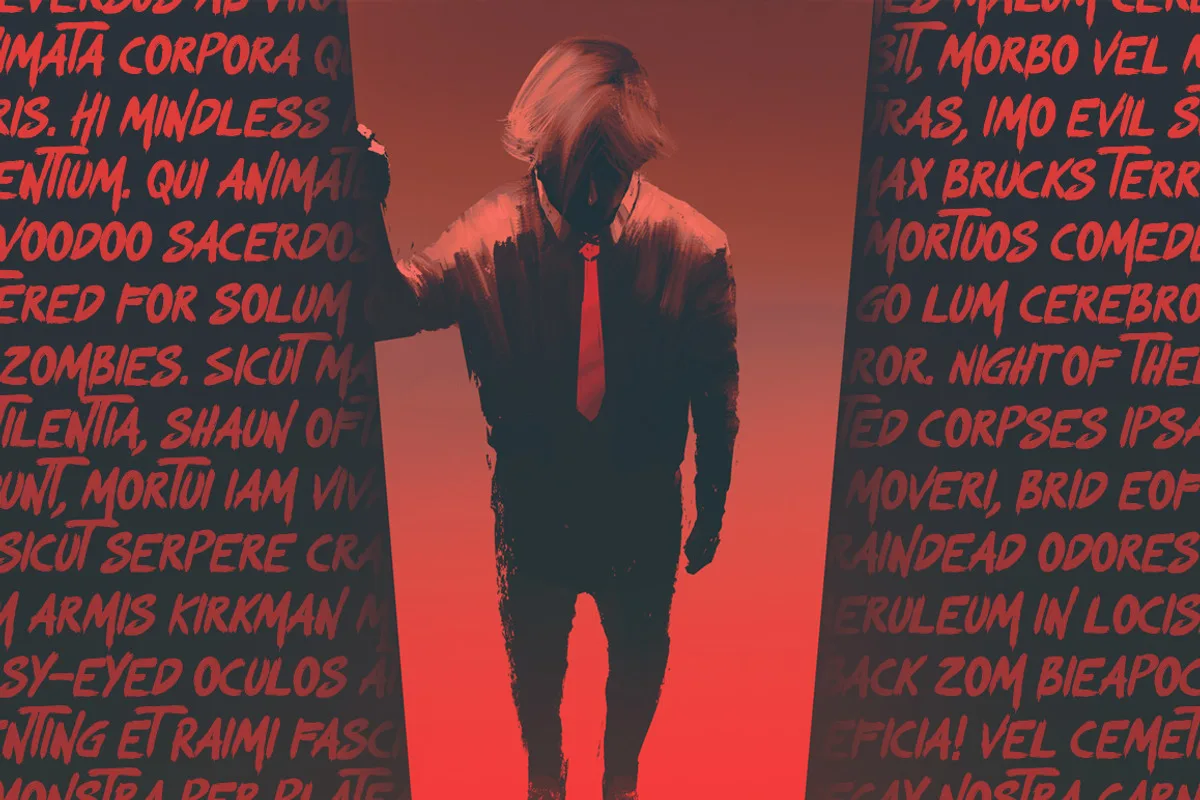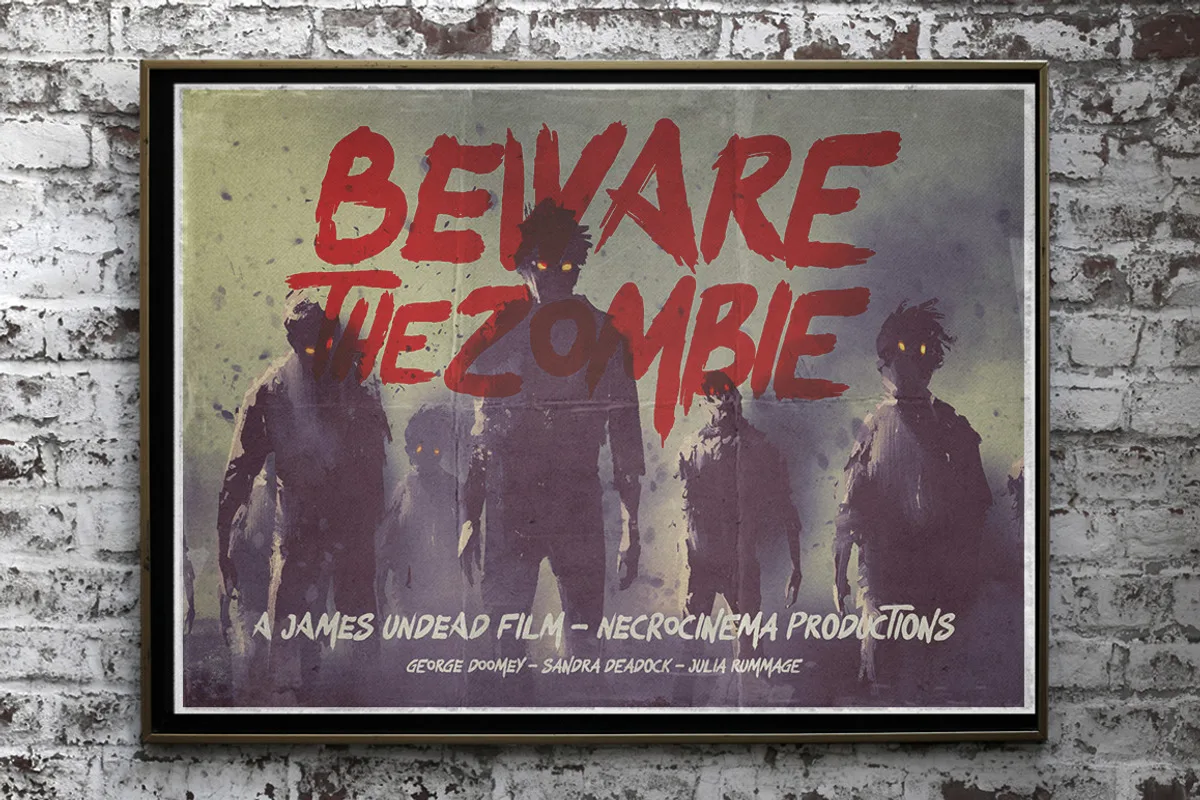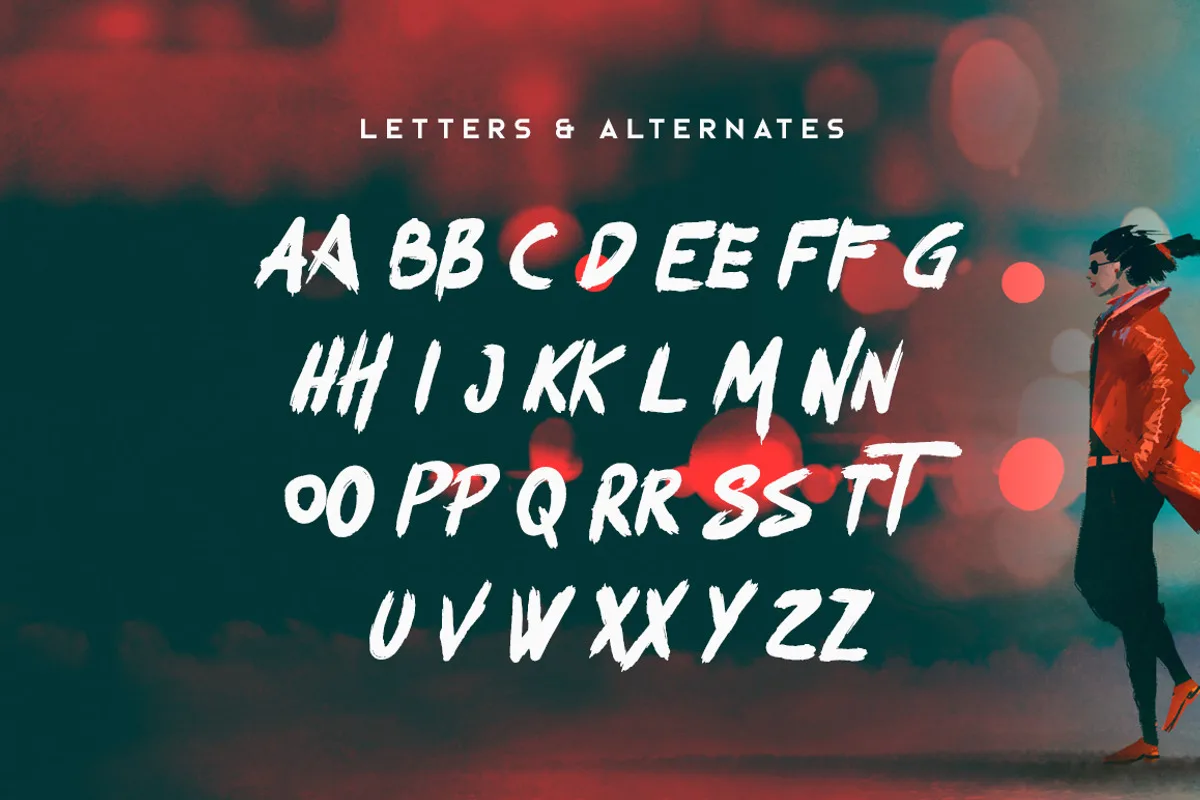
Okami is a hand-drawn brush font with rough and bold letters. It is perfect for branding projects, logos, wedding designs, media posts, advertisements, product packaging, product designs, labels, photography, watermarks, invitations, stationery, and any project who need handwritten dishes.
The font includes uppercase multilingual letters, punctuation and numbers. It also includes alternate styles for many letters which are toggled via Caps Lock.